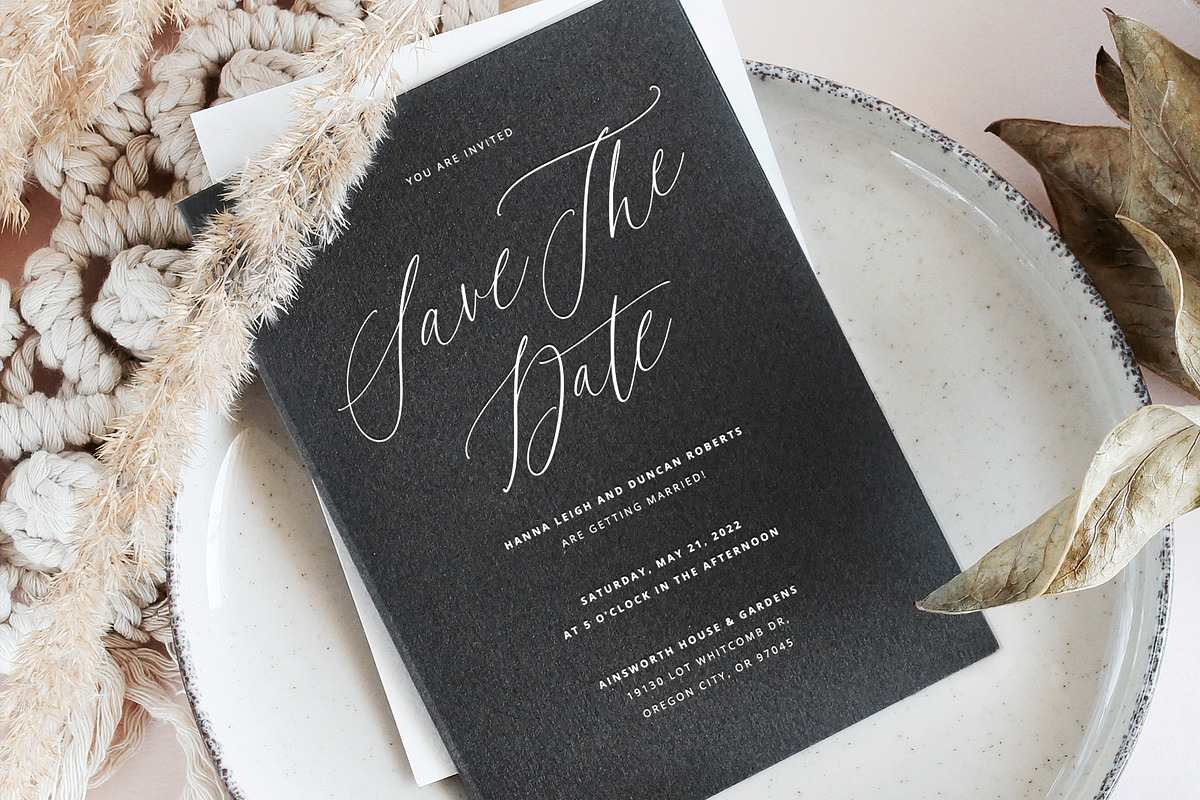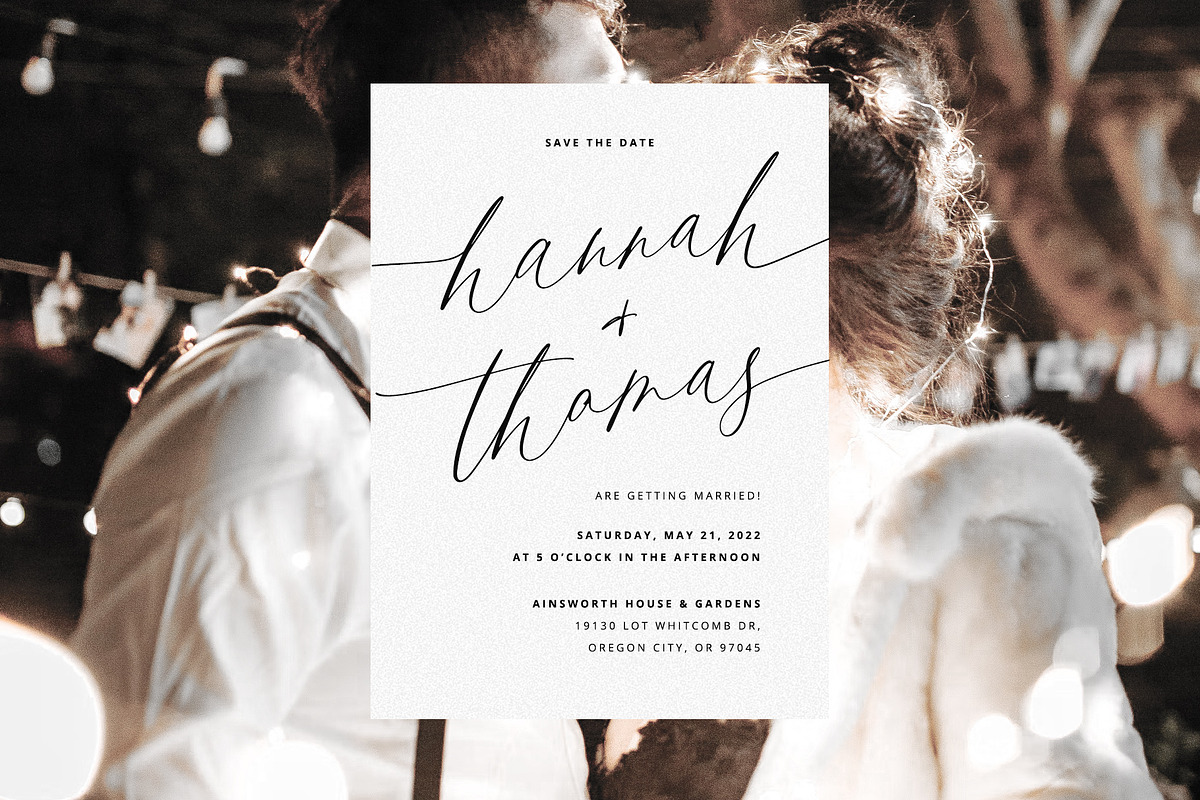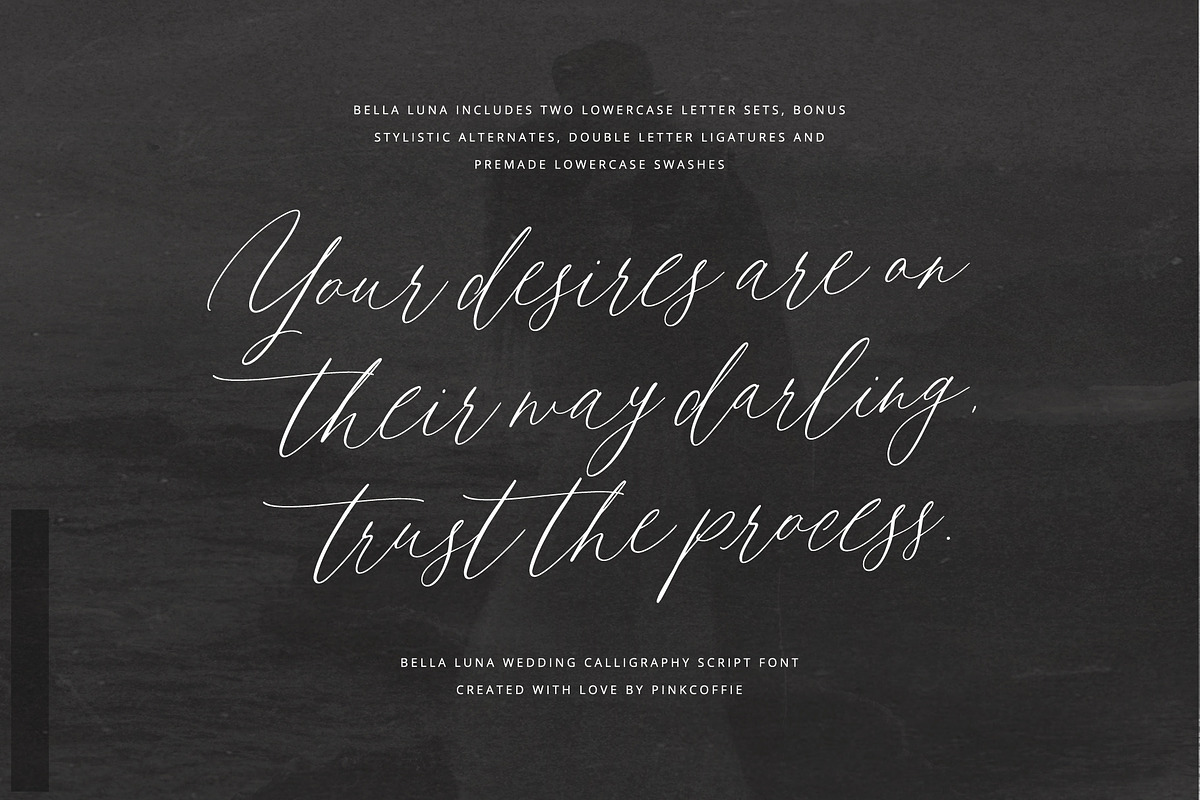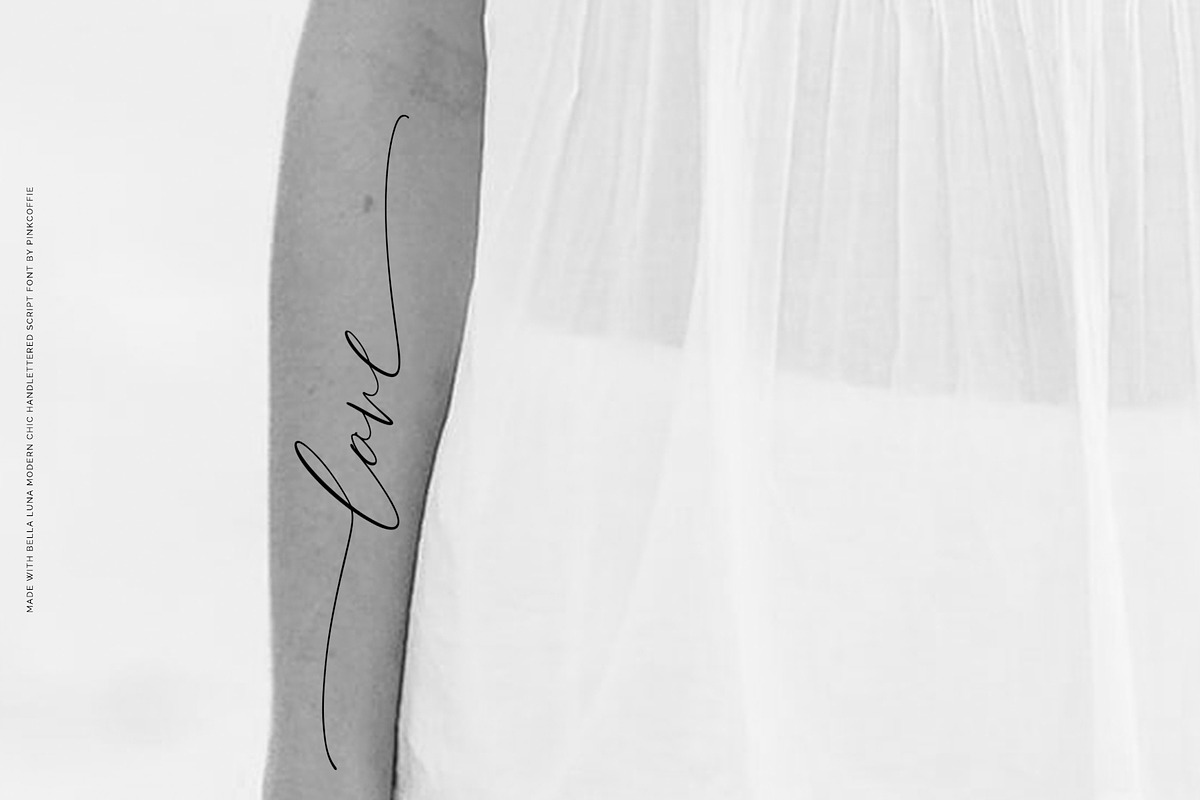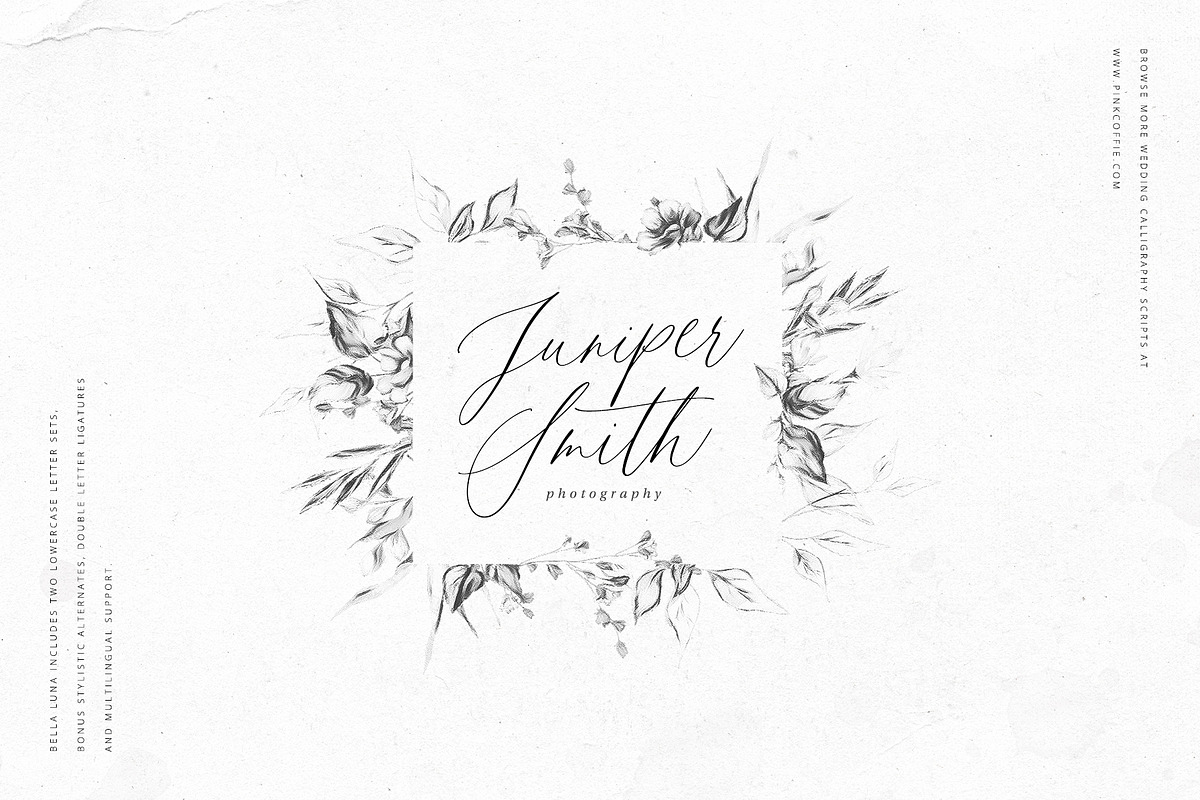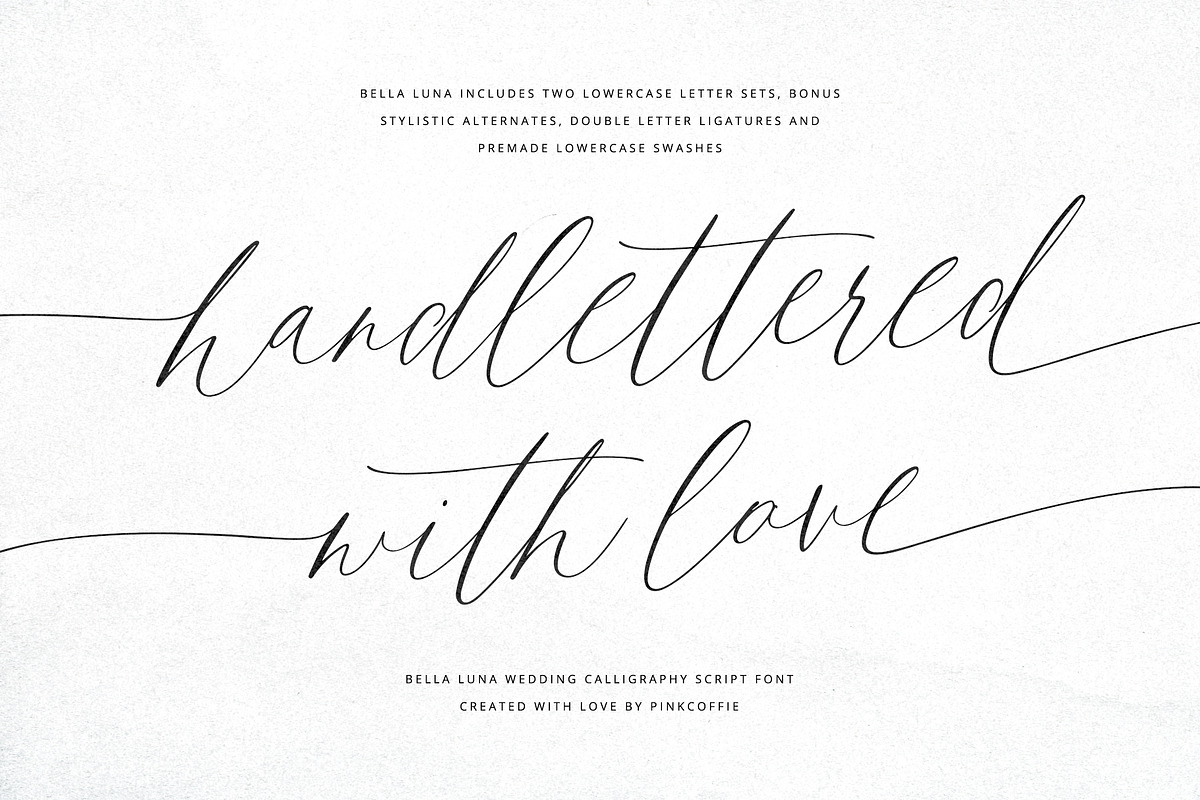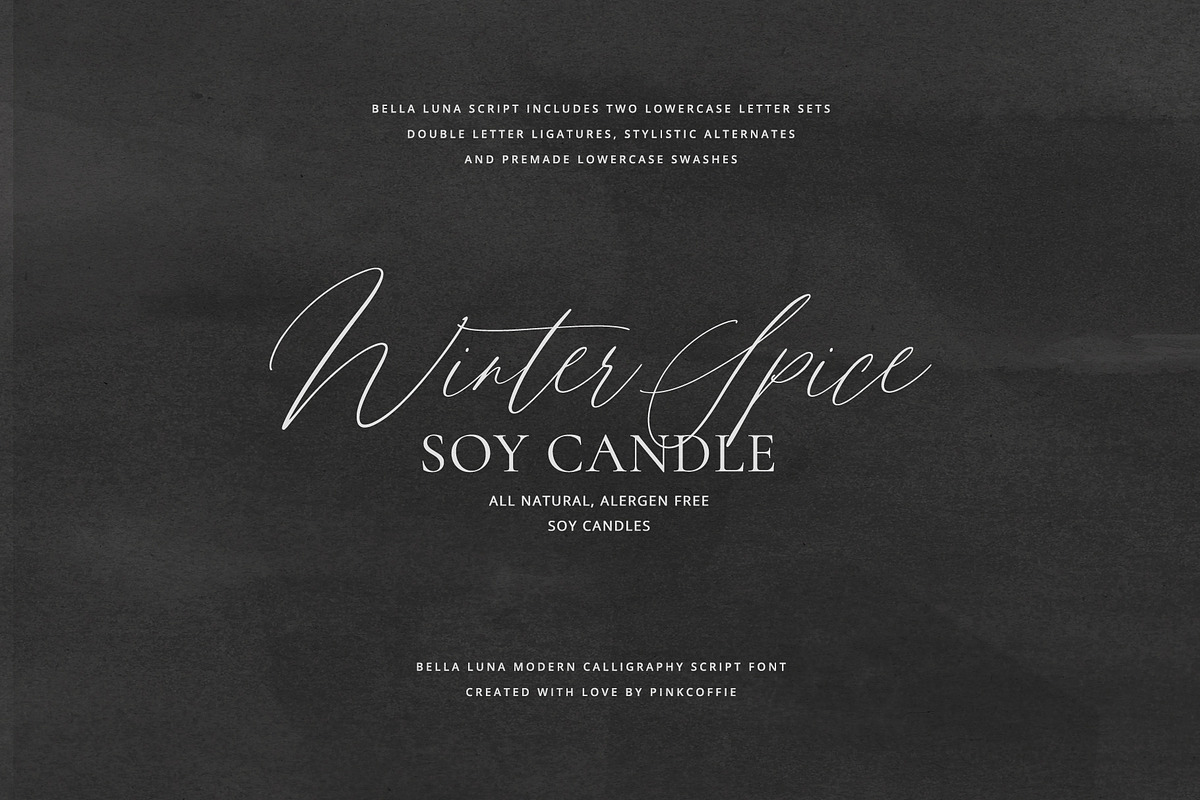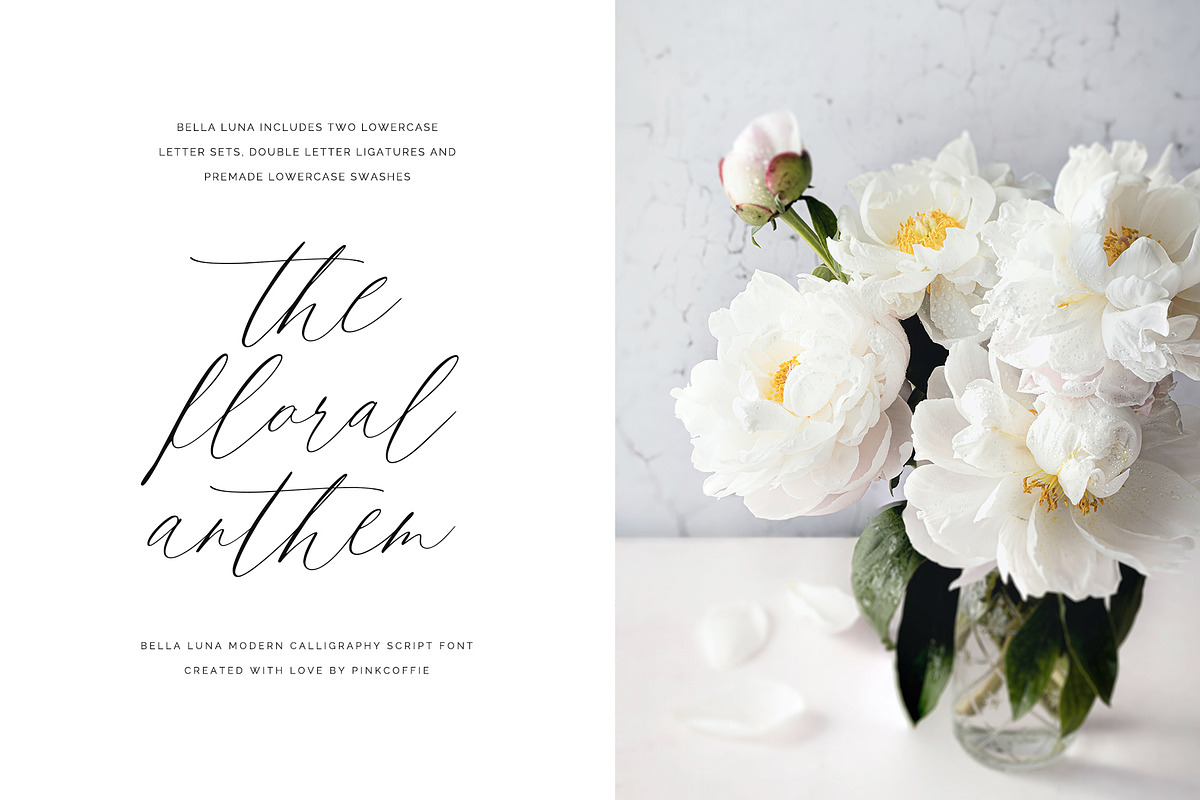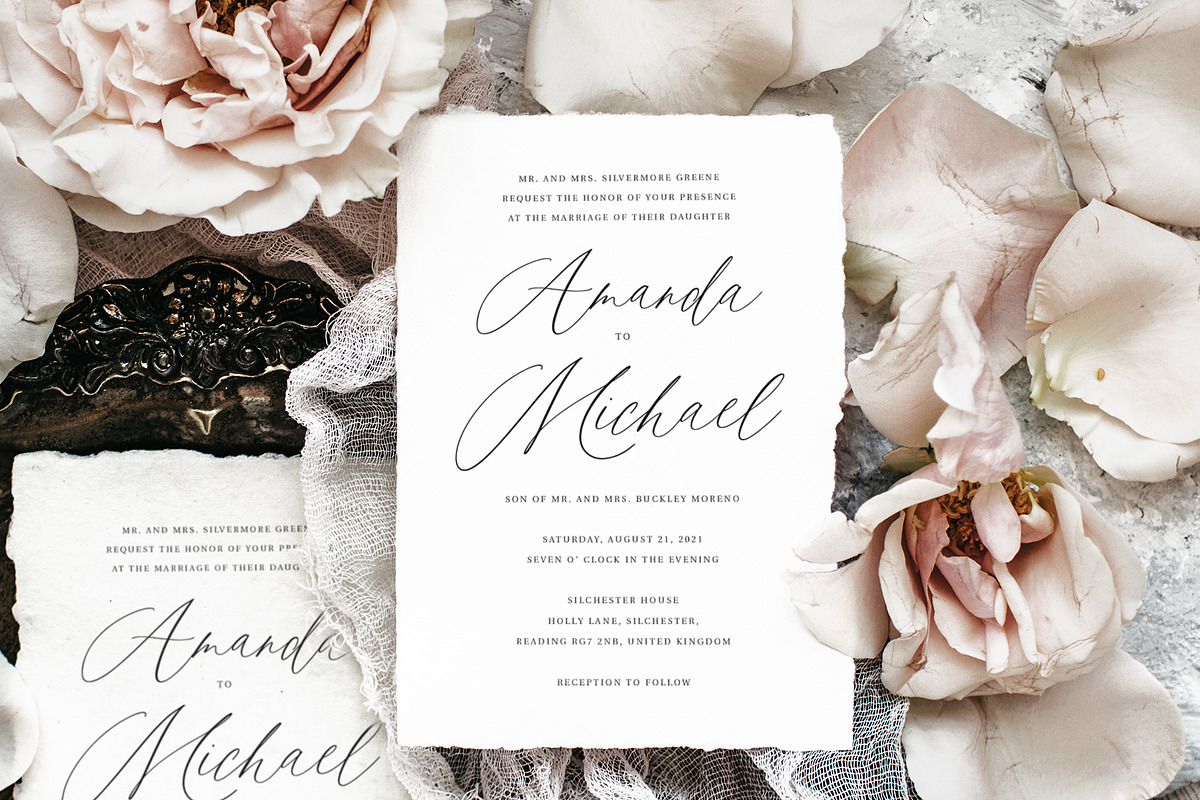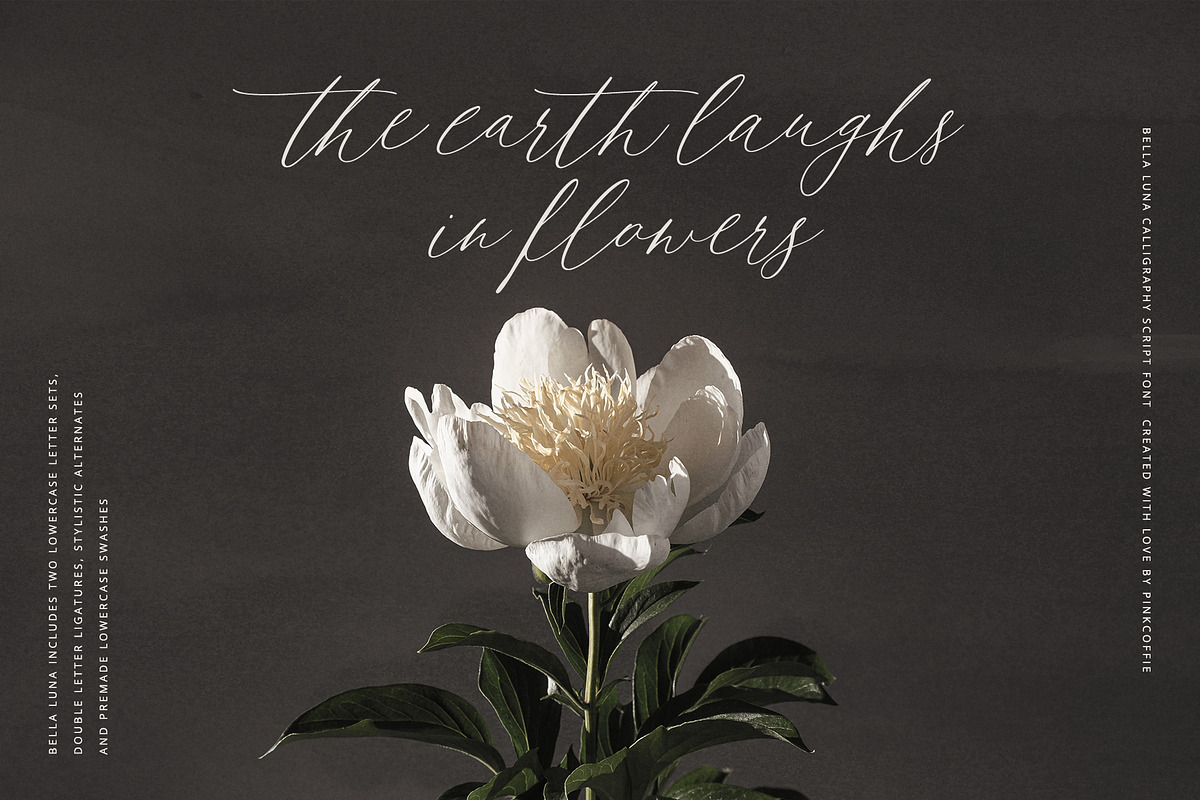
Bella Luna | Feminine Script Font
Say hello to Bella Luna, a feminine handlettered calligraphy script font inspired by delicate deckle-edged handmade paper, wedding stationery, and fine art illustrations. ♥
The lovely script includes two lowercase letter sets, bonus stylistic alternates & separated 't' stems + swashes ( useful when there are loads of t's in text ), automatic double-letter ligatures, multilingual support, and premade lowercase swashes to mix and match.
Bella Luna can be used for a variety of projects such as wedding invitations and save-the-date cards, feminine calligraphy logos, branding, wedding websites, stationery, greeting cards, printables, planners, personalized gifts, social media posts, quotes, prints, or any project that needs that classy, handwritten and feminine touch.